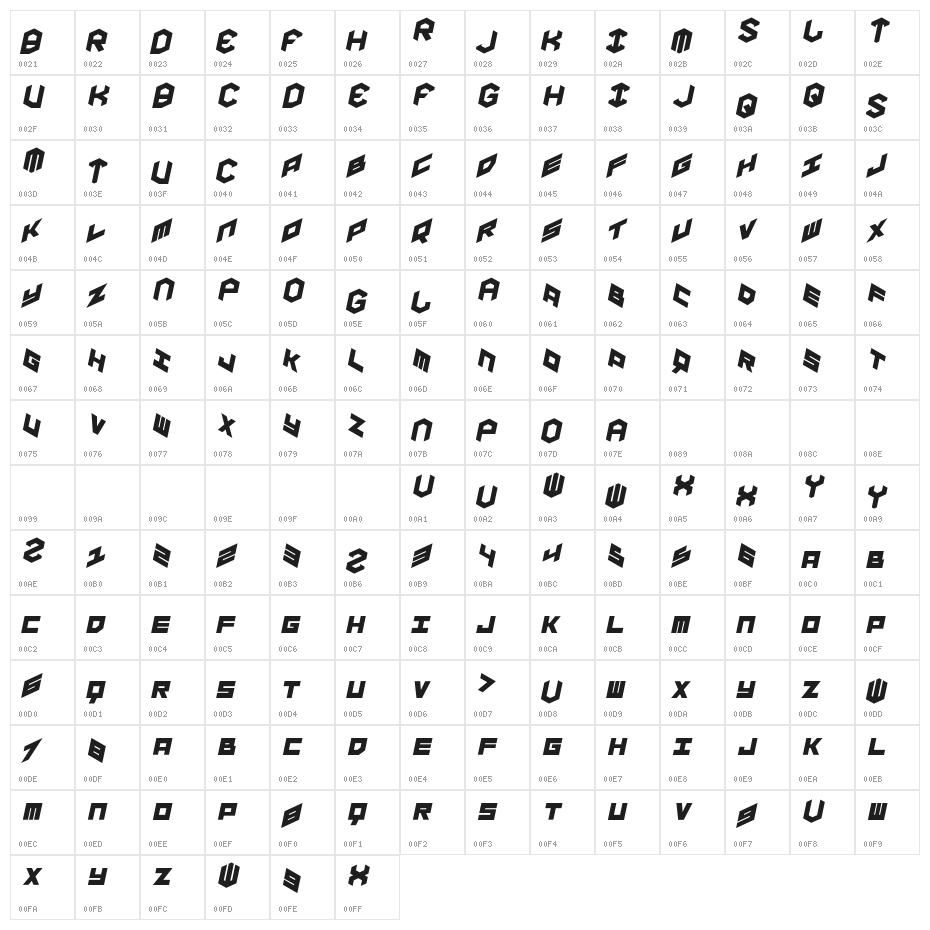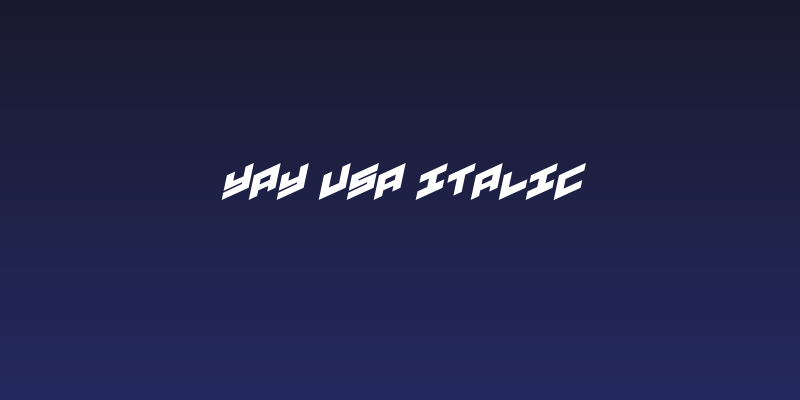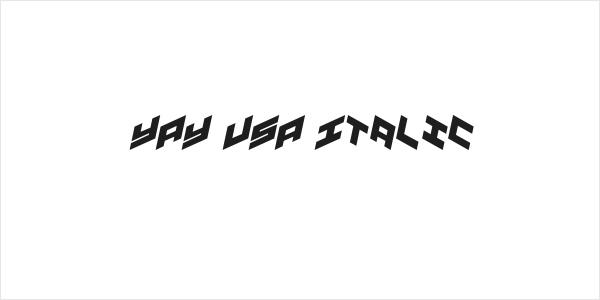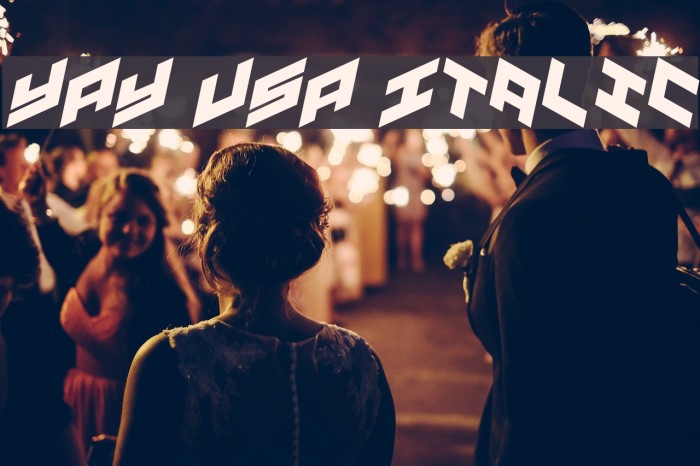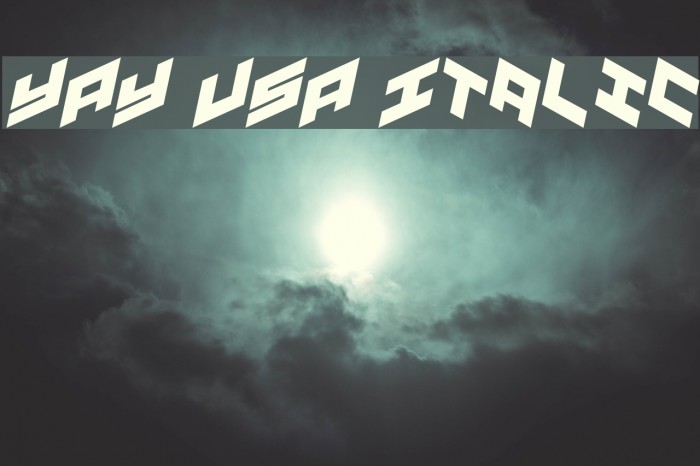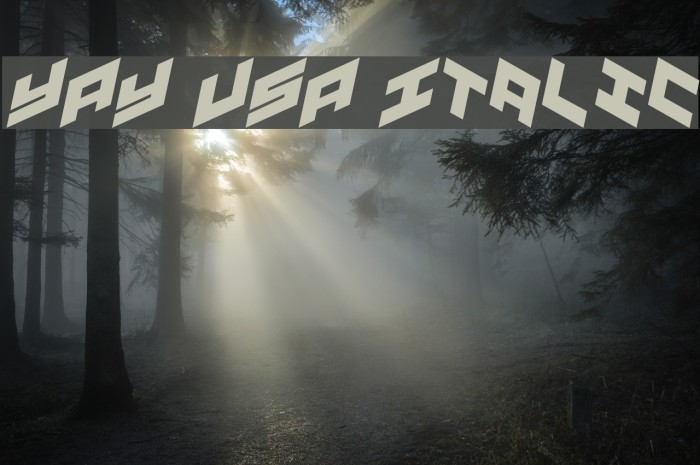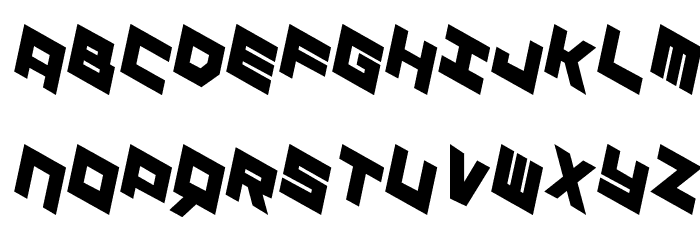
YAY USA Italic Font
YAY USA Italic Description
This font features a bold and dynamic style with a distinct italic slant, giving it a sense of movement and energy. The characters are angular and geometric, with sharp edges and a futuristic appearance. The uppercase and lowercase letters maintain a consistent style, with a strong emphasis on diagonal lines. The numbers and special characters follow the same design principles, ensuring uniformity across all glyphs. This font is highly legible and makes a strong visual impact, ideal for attention-grabbing designs.
| Proposed Projects | Ideal for sports branding, video game titles, posters, and dynamic logos. |